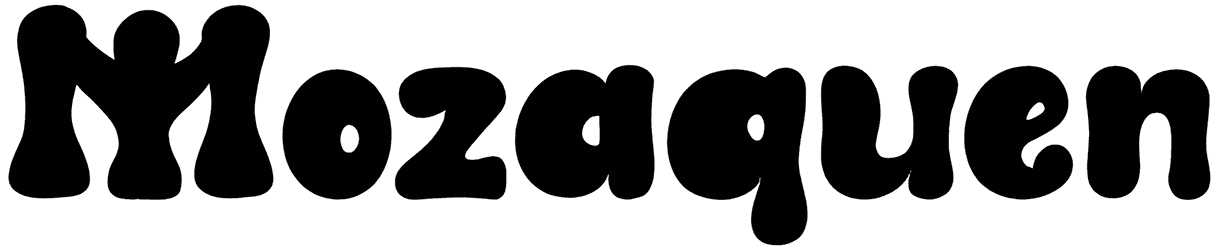
Mozaquen Font
Mozaquen is an incredibly distinct, timeless, and eye-grabbing groovy font that comes with wavy and chunky letters. This cartoon font can boost the visibility of your artwork and take your editorial projects, like illustrations, stickers, graffiti, wood engravings, or applications, to a higher level of quality. If you are looking for another font in the same category, don’t hesitate to check out the RB collection.